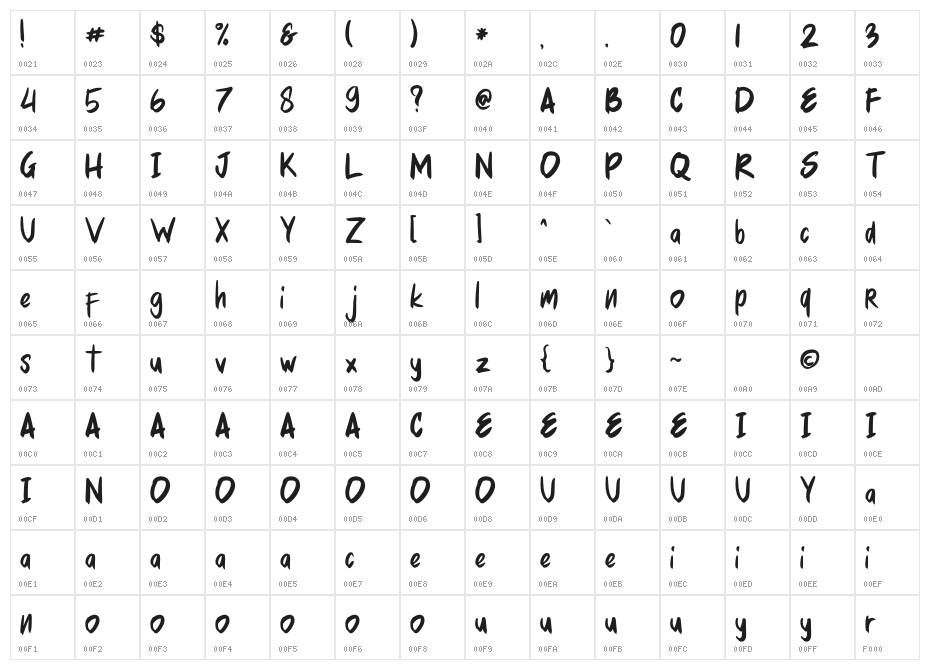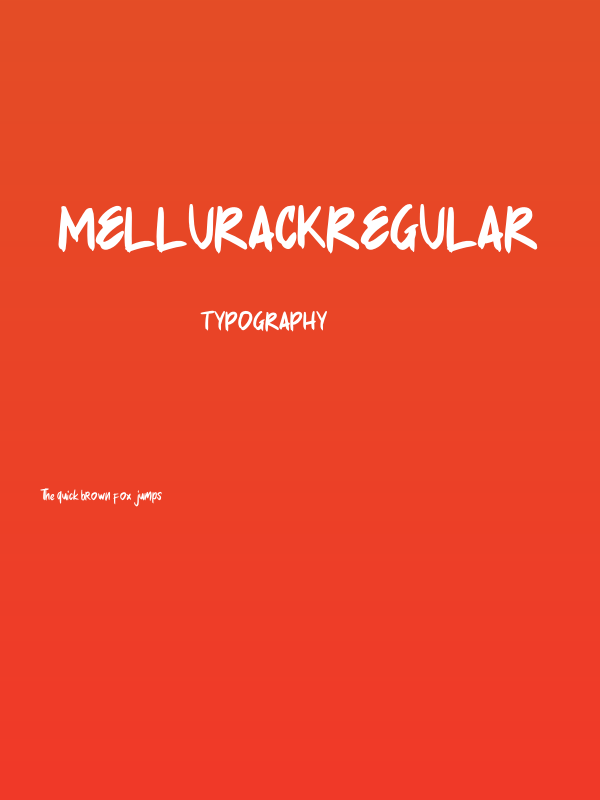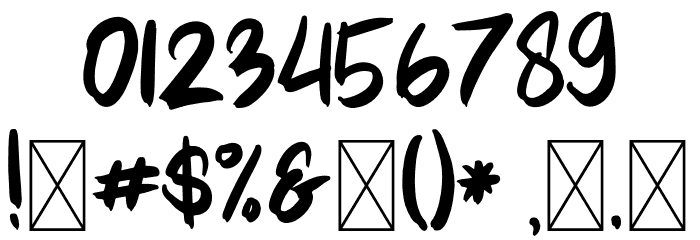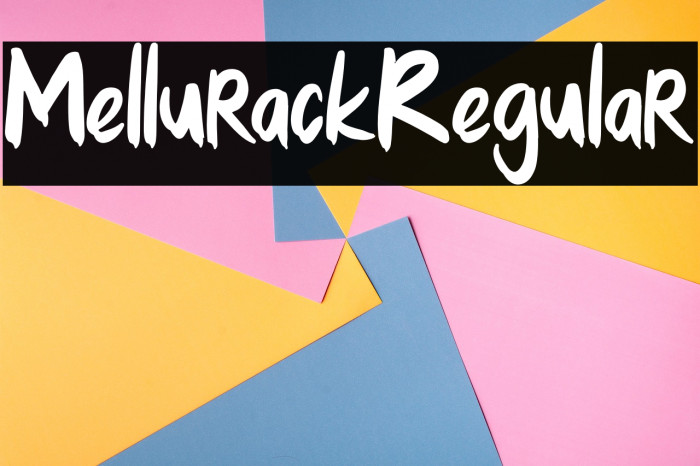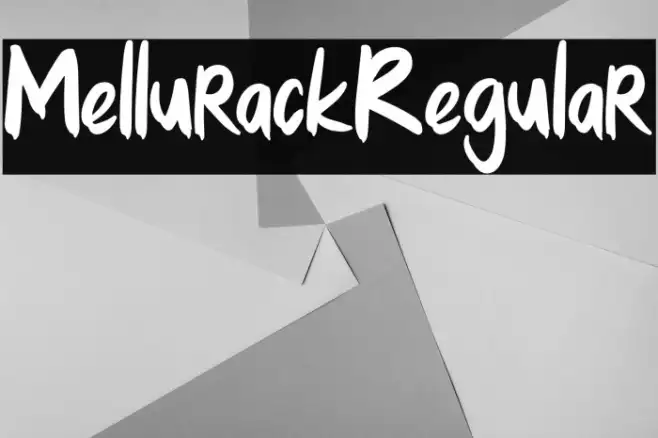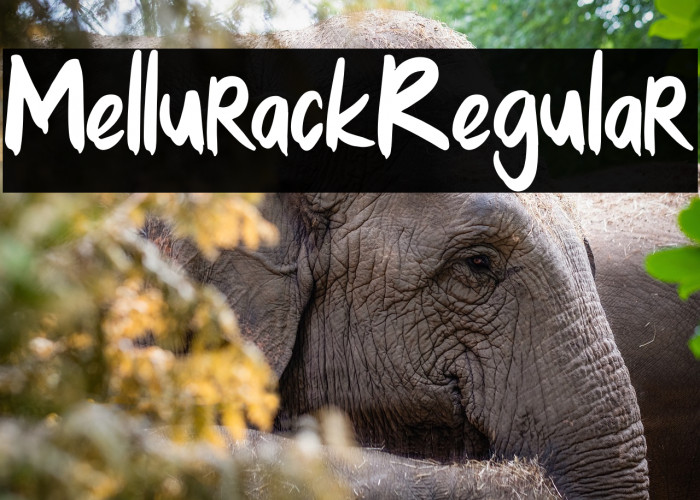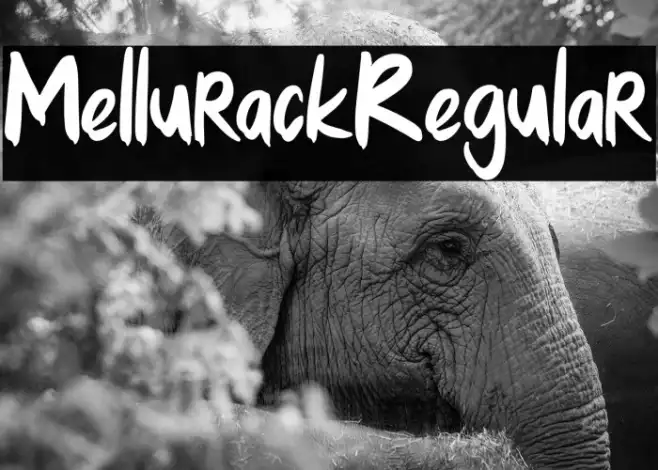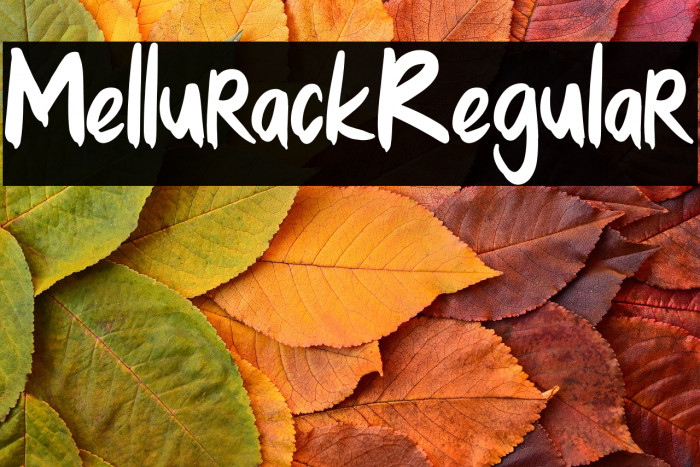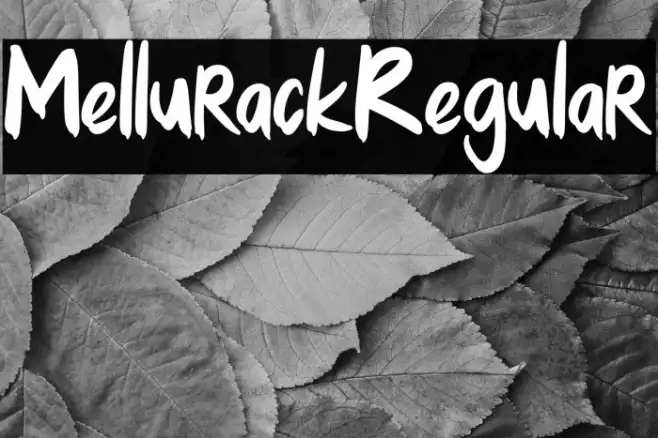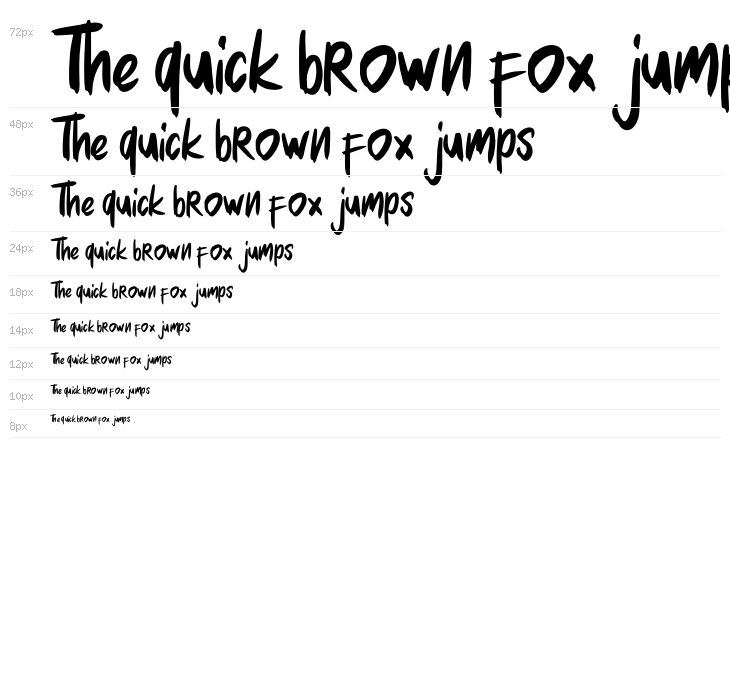
MellurackRegular Font
MellurackRegular Description
This font features a bold, handwritten style with a playful and energetic appearance. The letters are slightly slanted, giving a dynamic and informal feel. The strokes are thick and consistent, providing a strong visual impact. The uppercase and lowercase letters maintain a cohesive style, while the numerals and special characters complement the overall design. This font is ideal for projects that require a personal touch or a casual, friendly vibe.
| Proposed Projects | Great for greeting cards, posters, social media graphics, and branding that requires a personal and informal touch. |